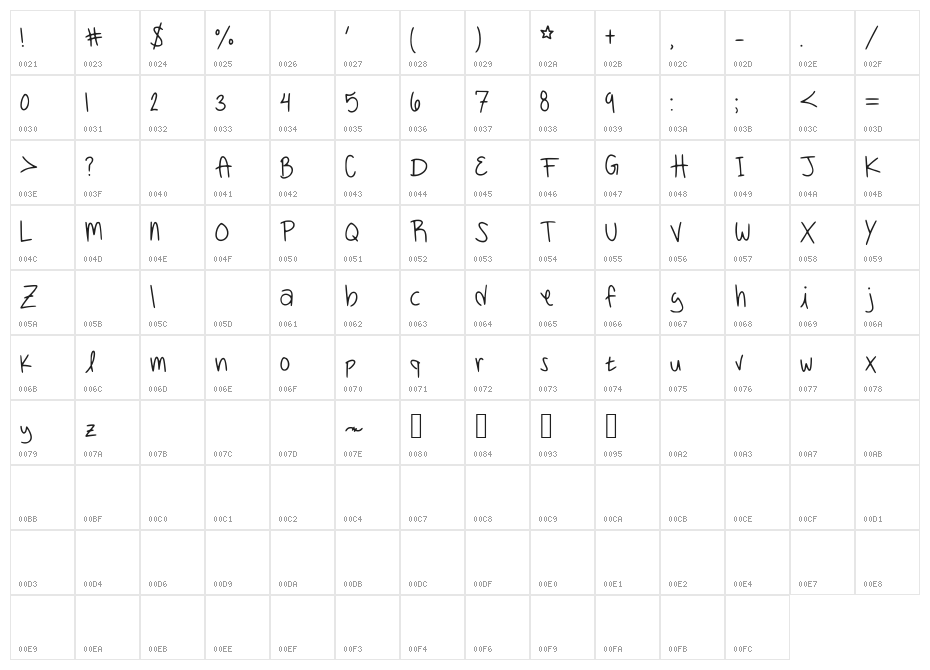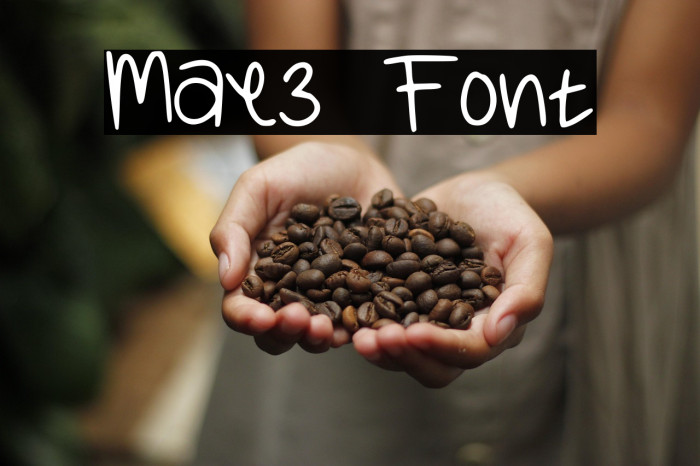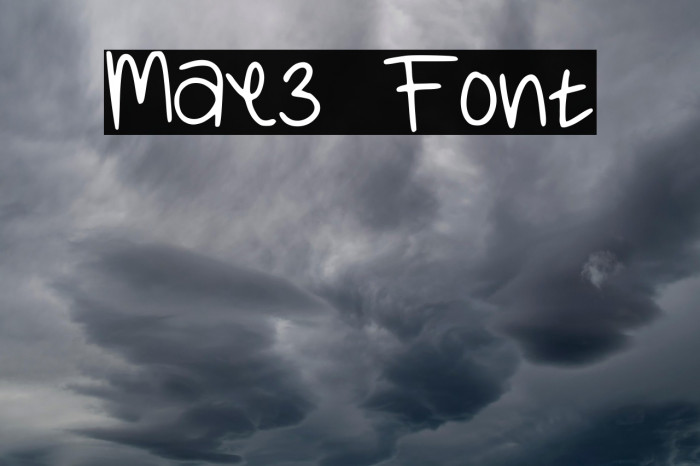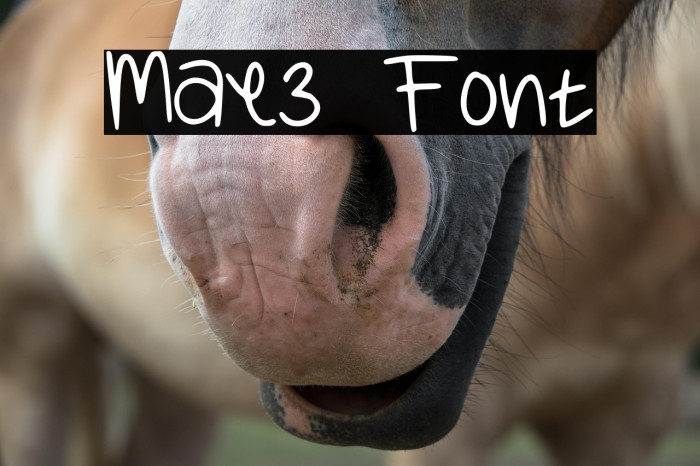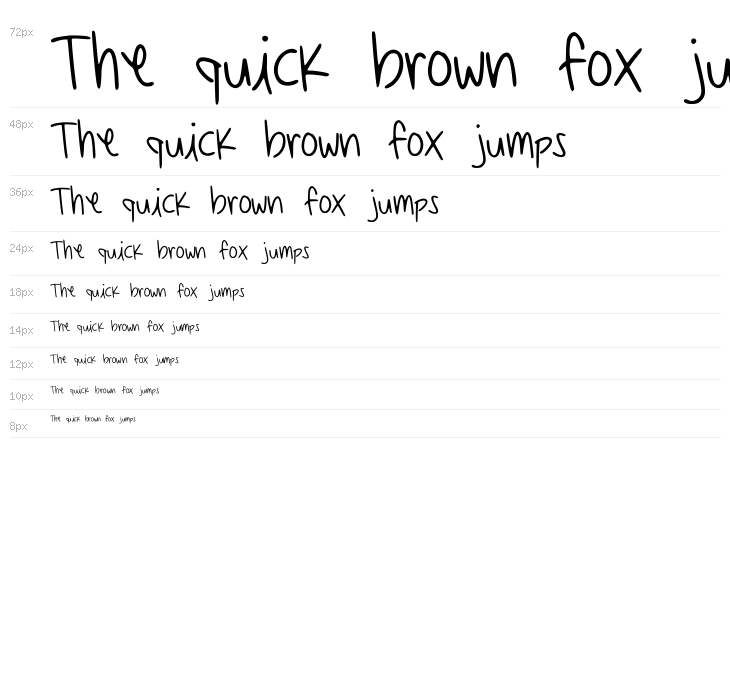
Mae_3 Font
Mae_3 Description
This font features a playful and casual handwritten style, characterized by its irregular strokes and informal appearance. The letters are slightly slanted, giving it a dynamic and lively feel. The uppercase and lowercase letters maintain a consistent style, with rounded edges and a friendly demeanor. Numbers and special characters follow the same playful theme, making the font versatile for various creative projects. The overall look is approachable and personal, ideal for designs that require a human touch.
| Overall Style | Casual, Playful |
| Use Case | Headlines, Informal text, Creative projects |
| Proposed Projects | Ideal for greeting cards, children's books, personal blogs, and informal branding projects. |